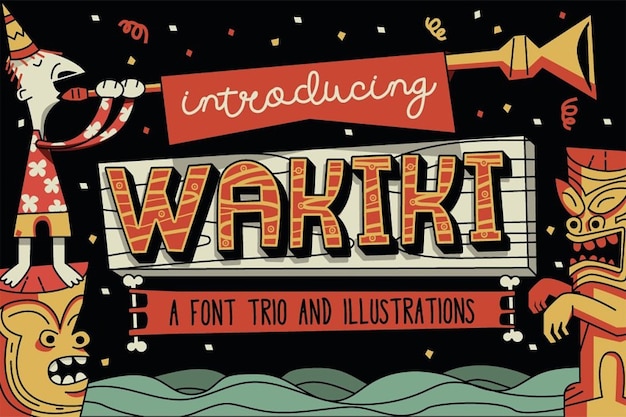
Wakiki Font
Wakiki font is a whimsical cartoon dream! It's bursting with playful vibes and funny charisma. Each letter feels like it jumped out of a comic strip, adding a dash of lightheartedness to your text. It's as if your words got a fun makeover, turning every message into a cheerful and bubbly delight!
Wakiki Regular (400)